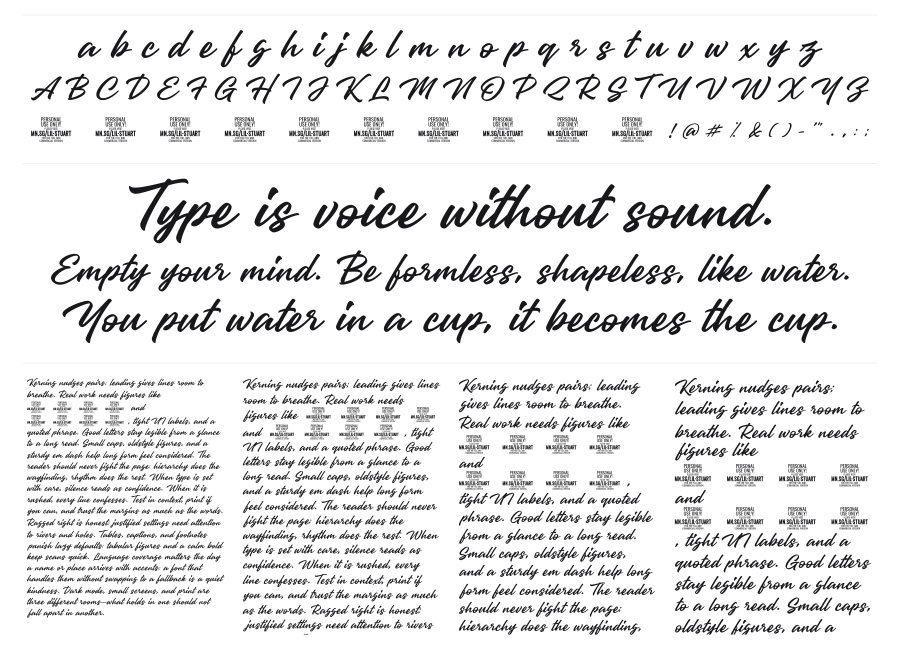
Lil Stuart
Lil Stuart is a bold calligraphic brush script with the spontaneous energy of confident hand-lettering. Heavy downstrokes contrast sharply with fine hairline upstrokes, and the flowing connections between letters give it a sense of speed and movement. OpenType features include contextual alternates, ligatures, and a clever underscore-and-hash trick for generating swashes.